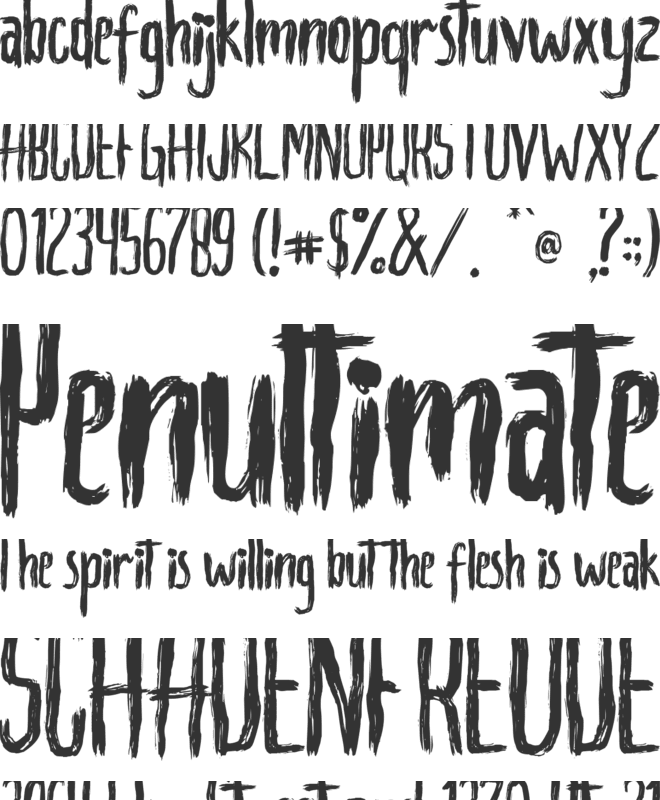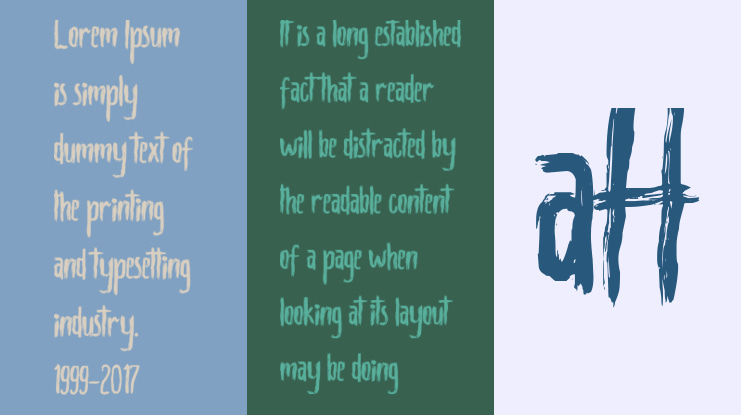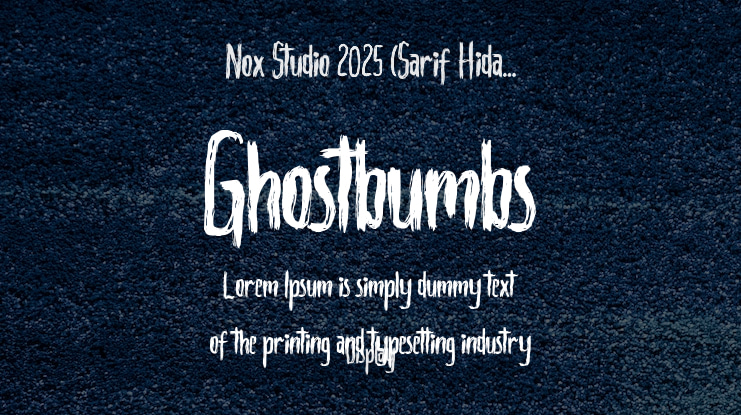
Ghostbumbs Font
Ghostbumbs is a spooky handwritten font with a creepy and rough style. Perfect for Halloween designs, horror posters, scary quotes, invitations, and more.
This font will give your projects a haunting and eerie touch, making them stand out in any dark or scary theme.